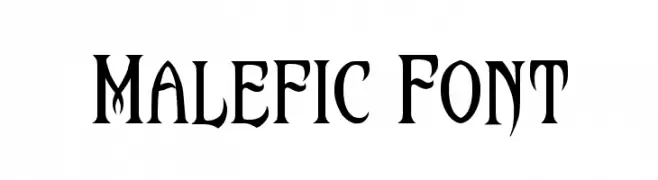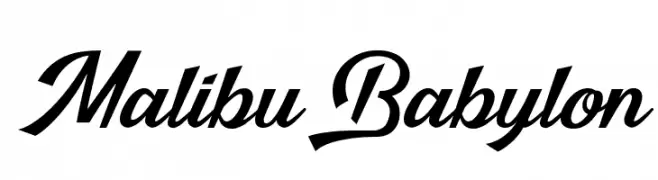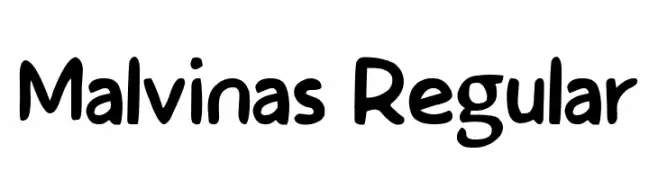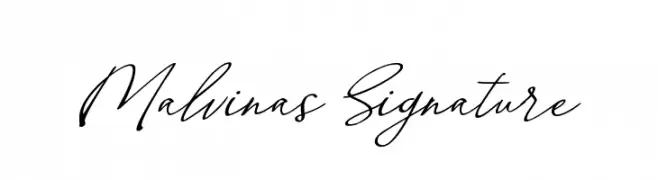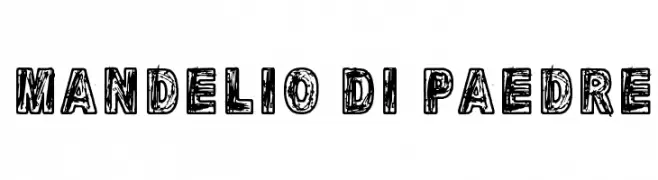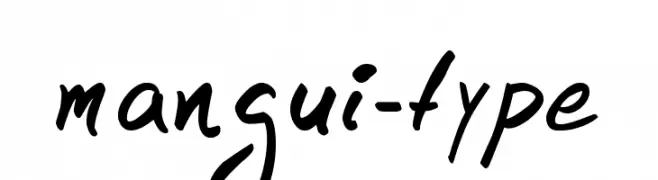
A gothic, medieval-inspired font with sharp serifs and bold styling.
A bold, dynamic script font with elegant, flowing cursive letters.
A playful, rounded font with smooth curves and a friendly appearance.
Elegant cursive script with flowing, handwritten style.
A bold, playful font with a whimsical, hand-drawn style.
A bold, distressed font with a hand-drawn, textured style.
A bold, distressed font with a rugged, handcrafted appearance.
A bold, manga-inspired font with dynamic brush stroke effects.